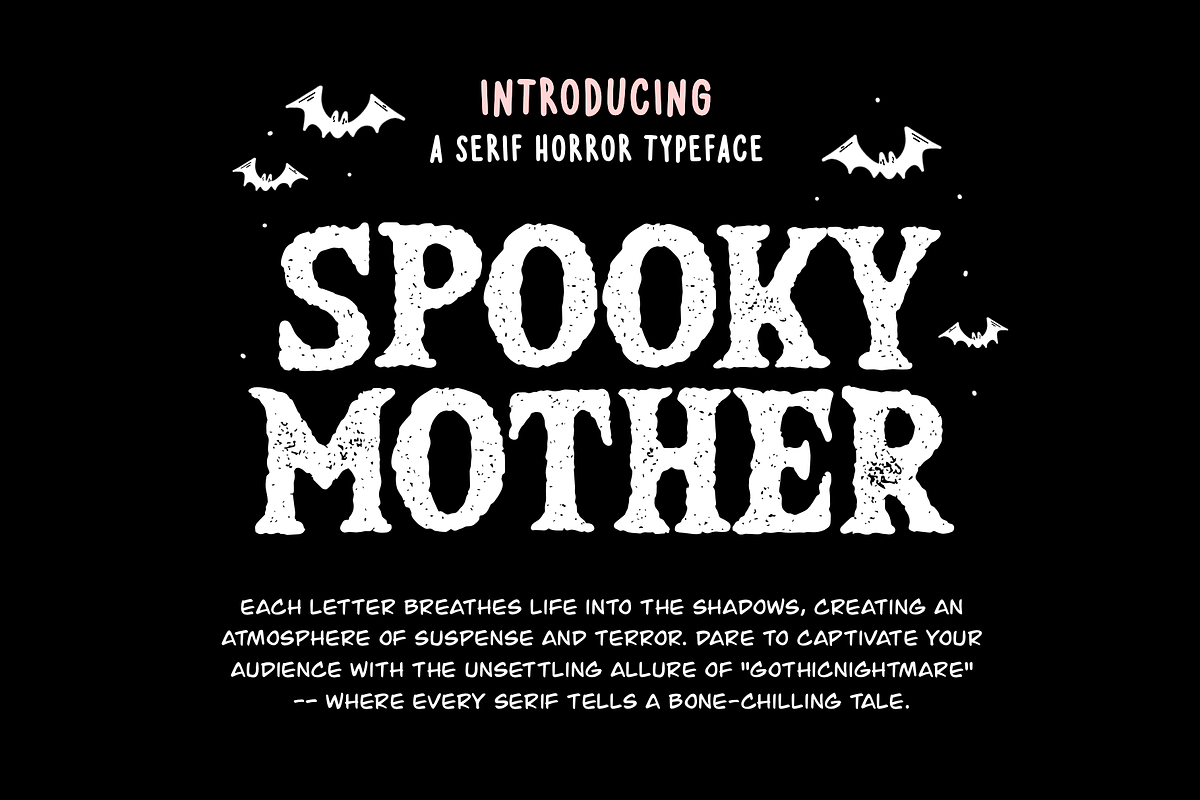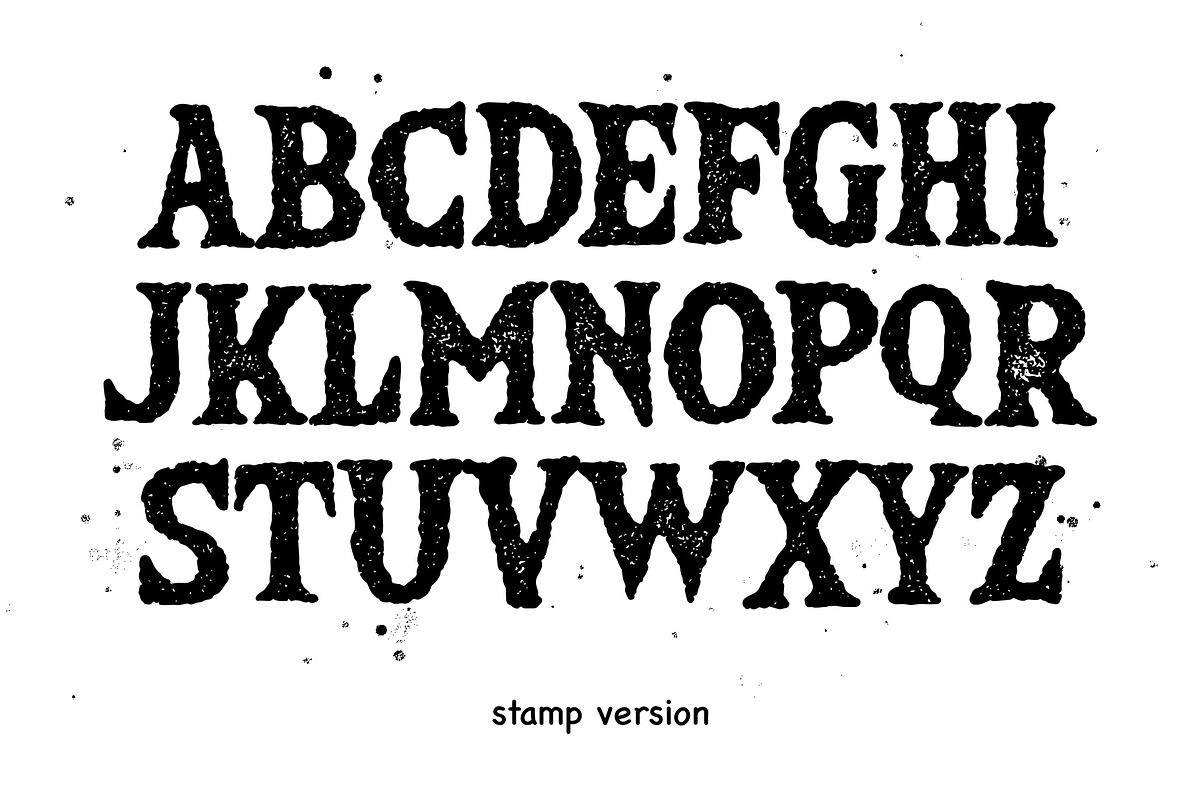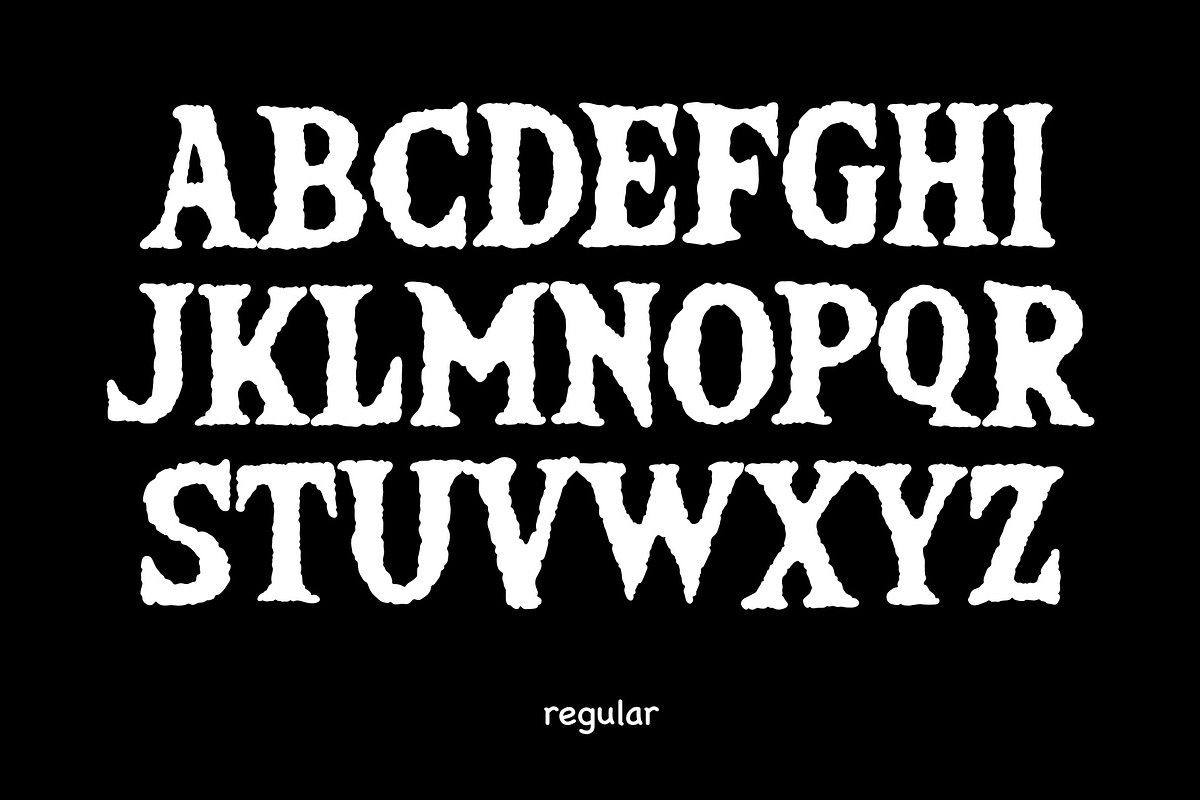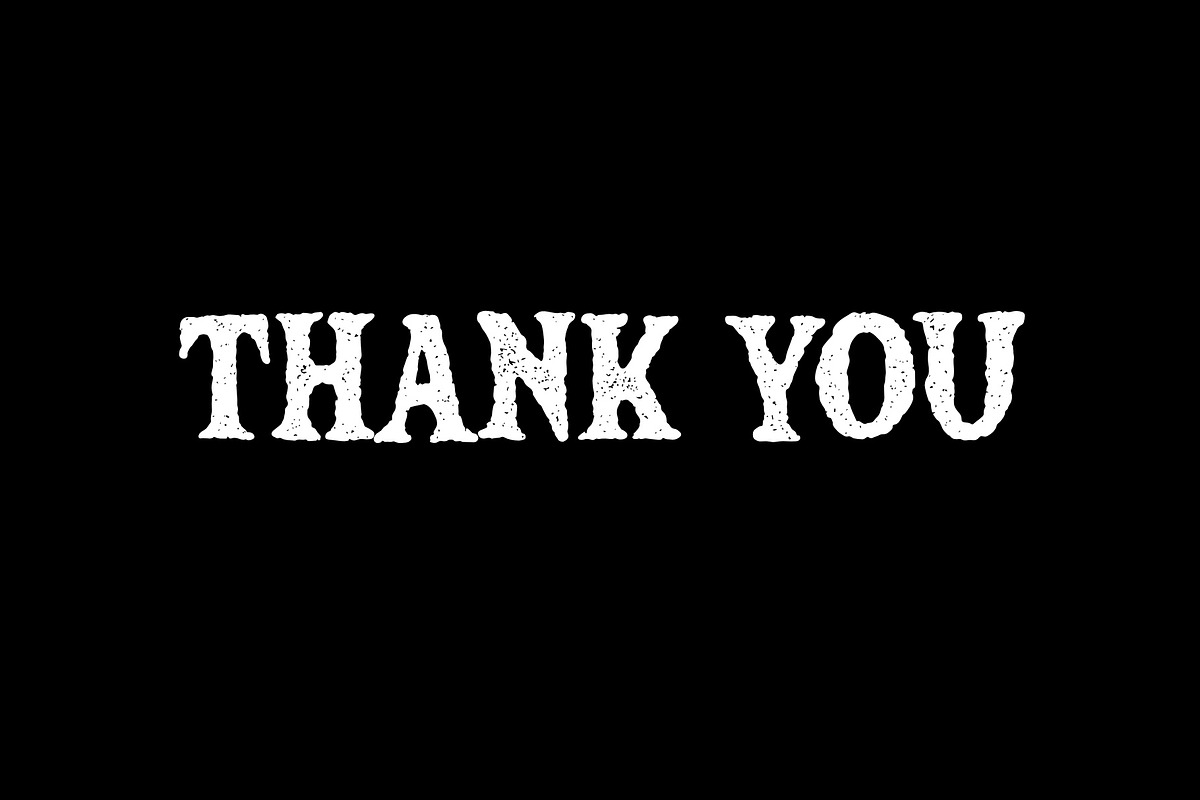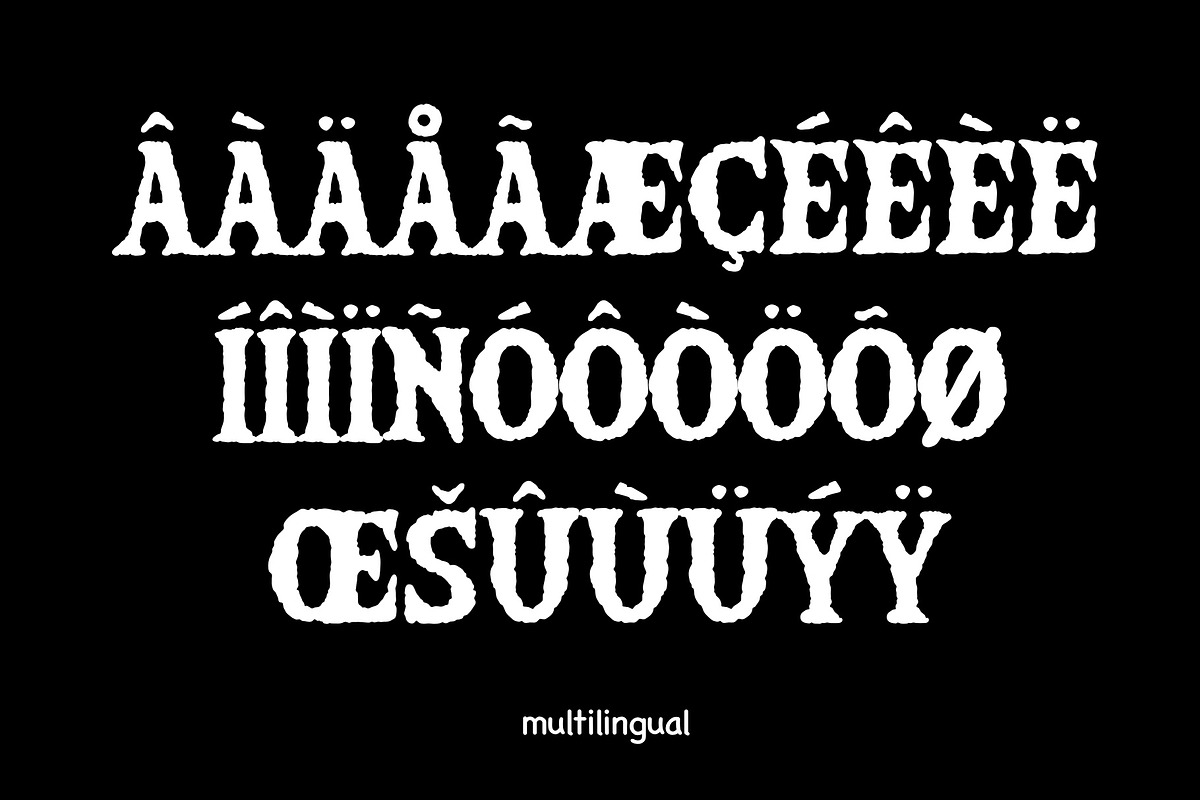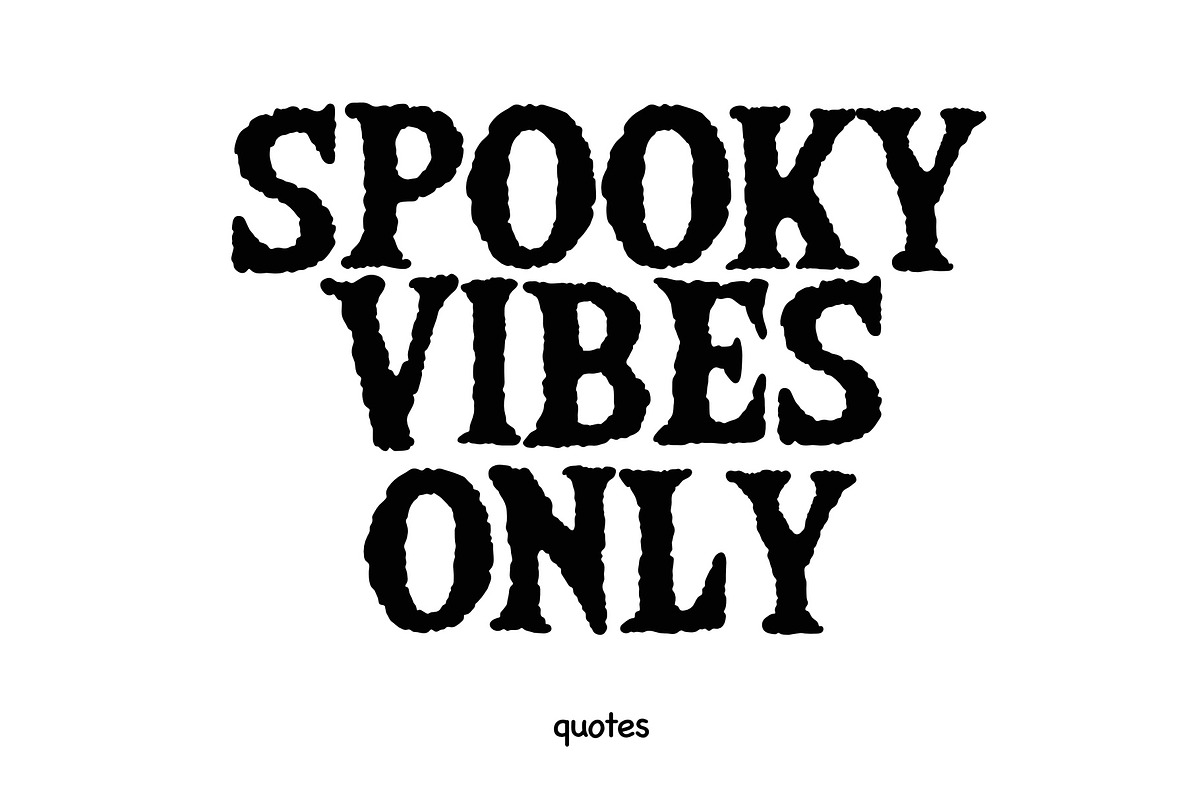
Spooky Mother Font - Serif Horror
"Spooky Mother" is a captivating serif horror font typeface that seamlessly merges elegance with an eerie undertone. This typeface available in SVG format, compatible with advanced tools such as Cricut and Glowforge, and for use in Procreate. This font is also included in Accent or Multilingual Font. Whether in headlines or body text, "Spooky Mother" adds a touch of macabre sophistication, capturing attention with its unique blend of serenity and spookiness.